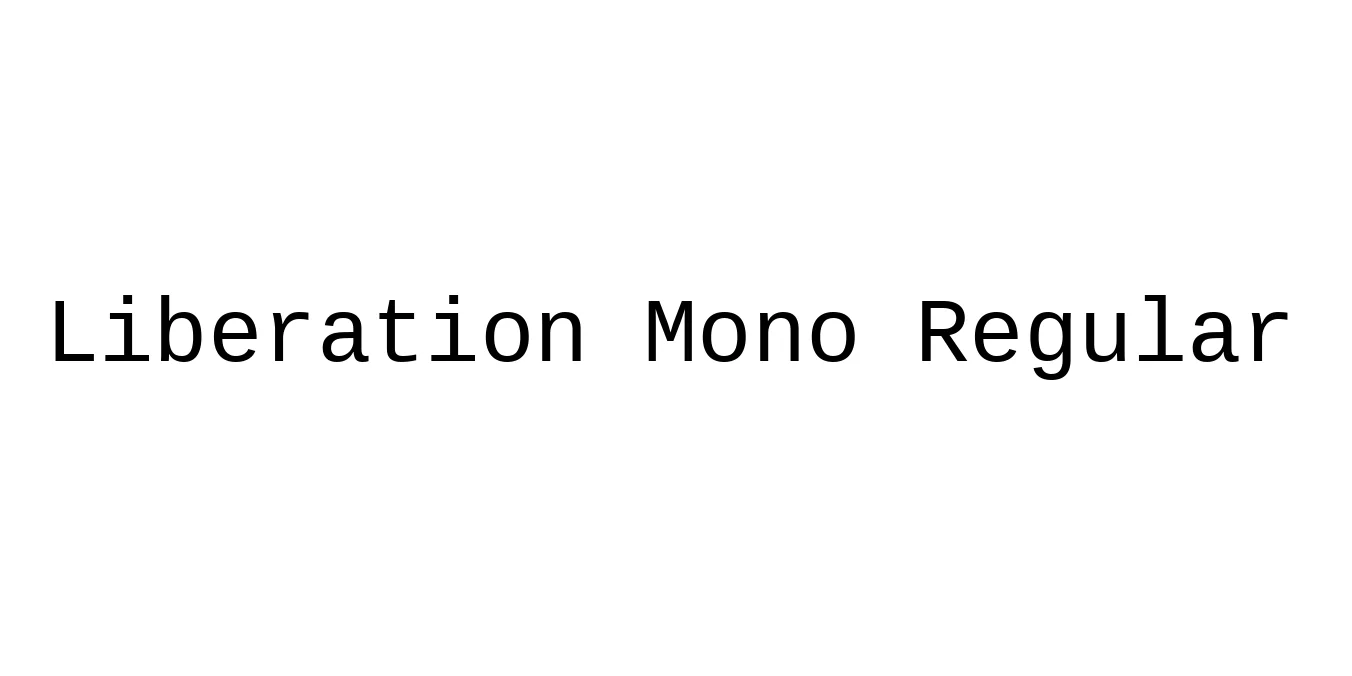
Liberation Mono Regular
Designed by Steve Matteson
Liberation Mono Regular was commissioned by Red Hat in 2007 and developed by Steve Matteson of Ascender Corp. It was specifically engineered to be metrically compatible with Courier New, a widely used proprietary font. This design choice ensures that documents and layouts created for Courier New will render with identical line wraps and page breaks when using Liberation Mono, providing a seamless open-source alternative for users across different operating systems.
The font belongs to the Liberation Fonts family, which includes Serif and Sans versions as well. It is characterized by its clean, monospaced design which excels in technical environments where character clarity is paramount. Distributed under the SIL Open Font License, it has become a standard inclusion in many Linux distributions and open-source software packages due to its high legibility and versatile application in digital environments.
Liberation Mono Regular Best Uses
The consistent character width makes it perfect for writing and debugging source code.
Highly legible in command-line interfaces and system consoles.
Excellent for displaying data tables or text that requires strict alignment.
Used frequently as a default system font for developer-focused applications.